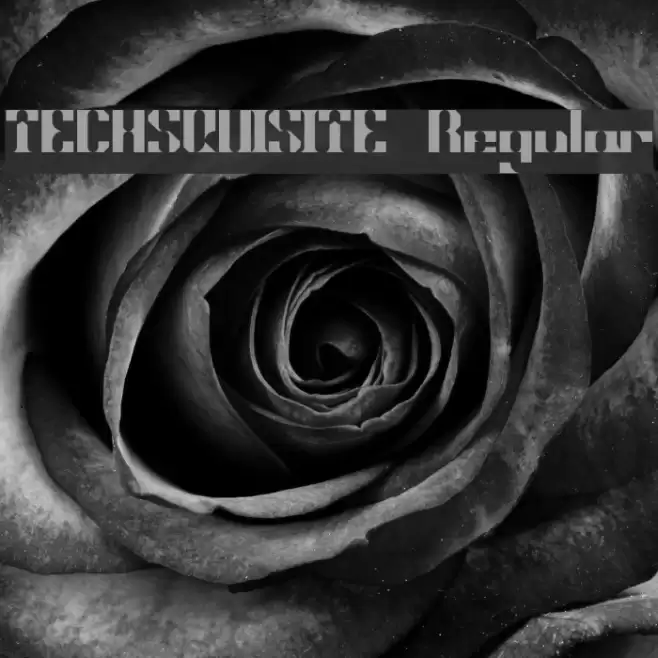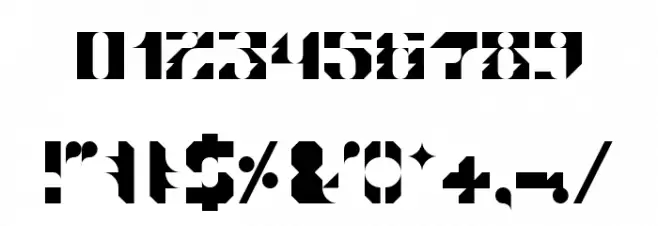
TECHSQUISITE Regular Font
TECHSQUISITE Regular Description
This font features a bold and geometric design with a futuristic and industrial feel. The characters are constructed with sharp angles and cut-out sections, creating a stencil-like appearance. The uppercase and lowercase letters maintain a consistent style, with a strong emphasis on vertical and horizontal lines. The numbers and special characters follow the same design principles, ensuring uniformity across the font. Its unique style makes it stand out, ideal for projects that require a modern and edgy look.
A bold, geometric font with a futuristic, stencil-like design from Uncategorized fonts.
- Proposed Projects: Ideal for technology branding, sci-fi themed posters, video game titles, and modern logos.